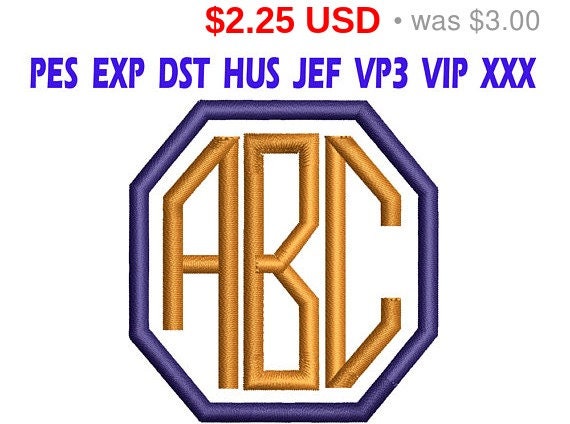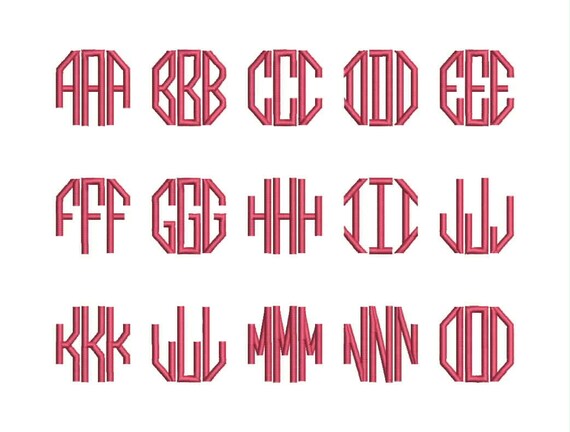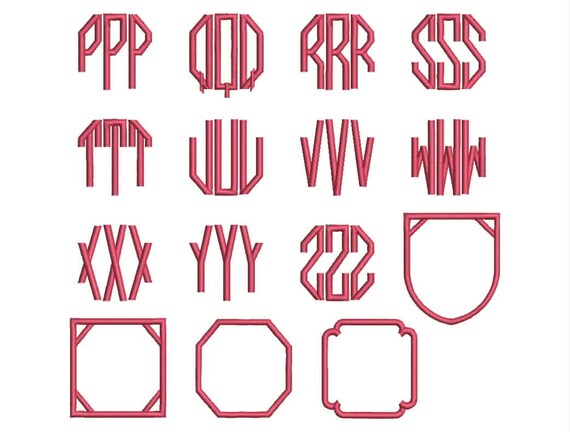
--Each font size have
-26 left alphabets
-26 right alphabets
-26 center alphabets
-4 Monogram frame (see product picture)
--All alphabets are satin stitch and for the large areas have split satin.